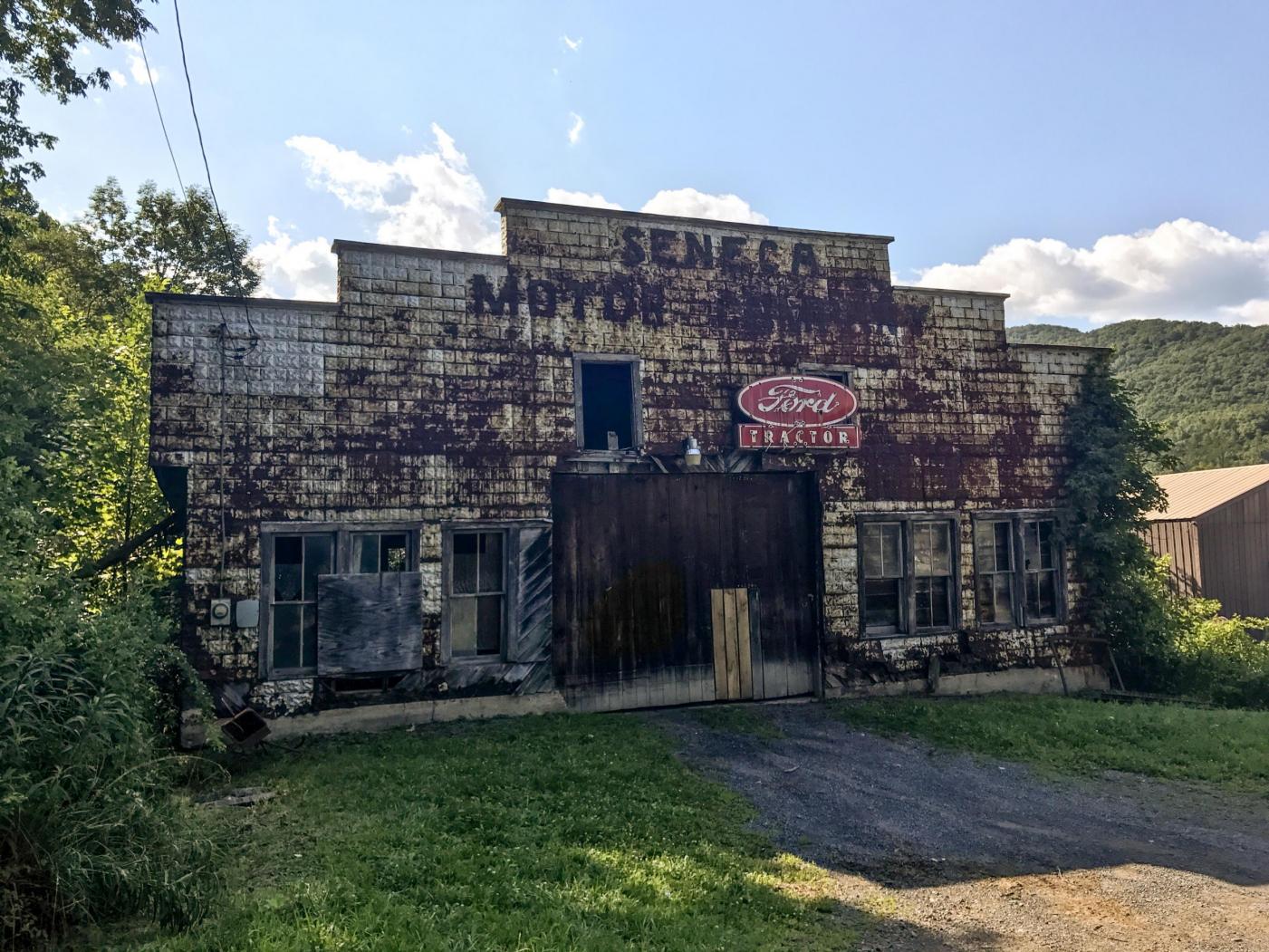
What’s the font? Seneca Motor Company
I have grown up going to a summer camp my family started in the mountains of West Virginia. Now my family and I have the opportunity help out. I’m tasked with redoing the lettering on our sign at the entrance to the camp on the highway. I plan on making the letters myself.
This old tractor dealer is nestled in the woods a stones throw from the camp, and I think it would be a nice nod to the history of this area to use the font used for “Seneca Motor Company” on our camp sign. Here is a photo I took of the old Seneca motor company, as well as a link to someone else on the internet who thought the building was neat.